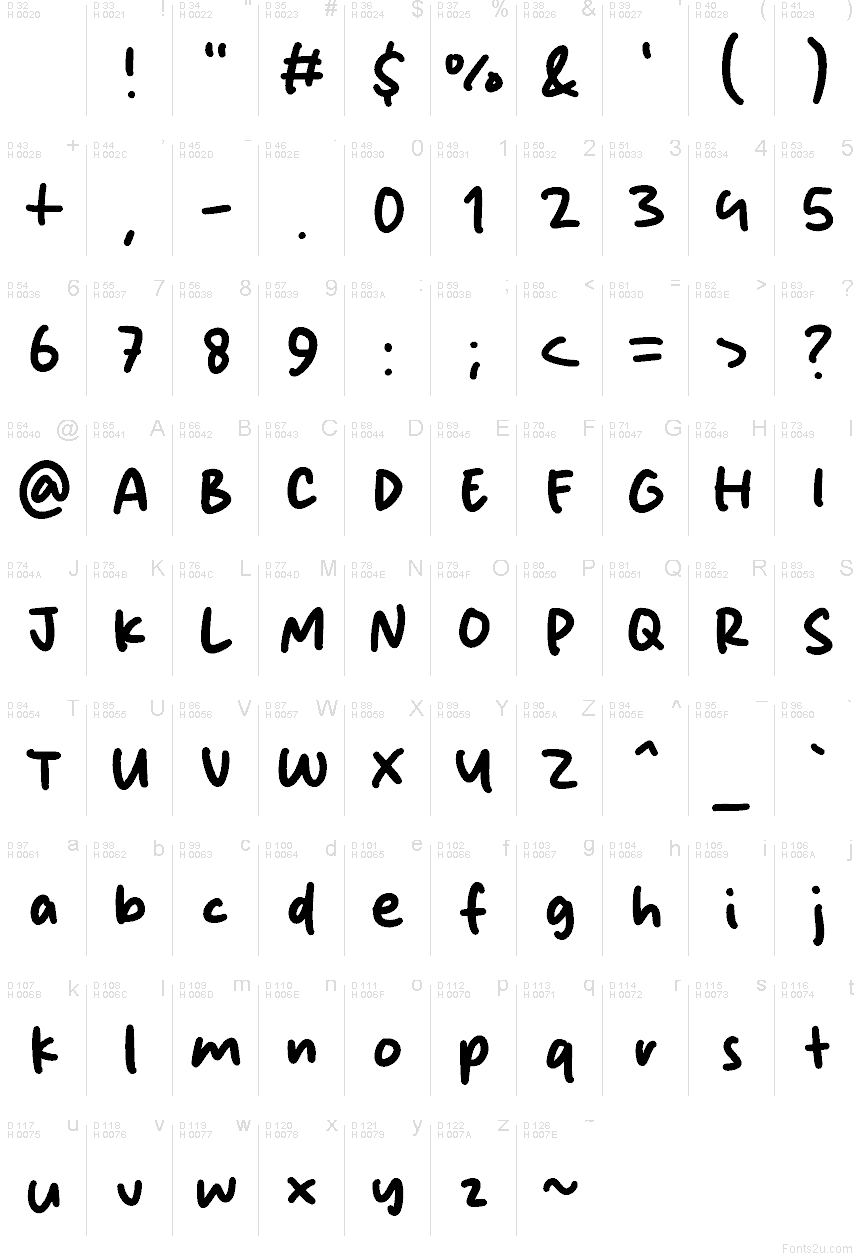
Magic Journal
Magic Journal font by Origin Type is a free handwritten typeface that gives you that “actually written by a person” feel without sacrificing clarity. The bold, inky strokes are smooth and rounded, with an easy rhythm that stays legible even at smaller sizes. It feels like notes in a favorite notebook—casual, warm, and just a bit bouncy—so your layouts look friendly instead of sloppy.
Using Magic Journal, you can bring a cozy, personal touch to planners, journaling apps, quote posts, kids’ branding, classroom printables, packaging, and casual logos. This free font shines on headings and short phrases; pair it with a clean sans serif for body text to keep things readable. Increase the letter spacing slightly for digital use to make the handwritten texture feel airy and approachable.